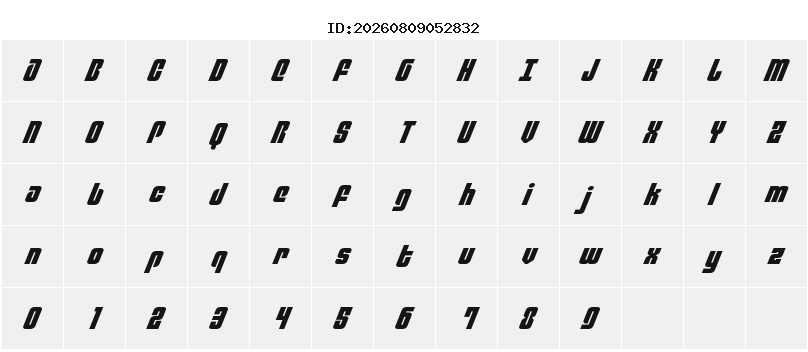
• Font Name: Philadelphia Expanded Italic
• Font Style: Expanded Semi-Italic
• Full Font Name: Philadelphia Expanded Italic
About Philadelphia Expanded Italic.ttf
Philadelphia Expanded Italic.ttf is a modern, elegant sans-serif font designed for ultimate readability and visual harmony. Perfect for branding, headlines, web design, and print materials.